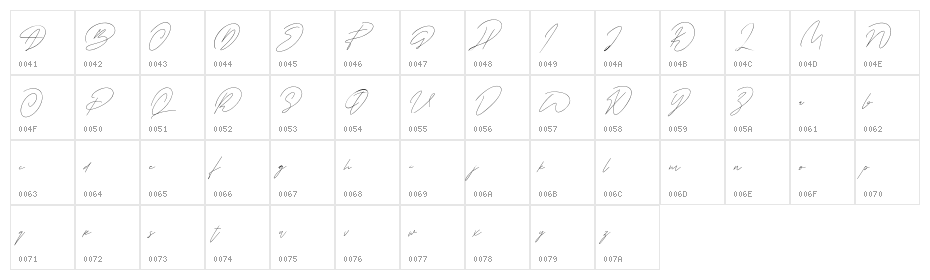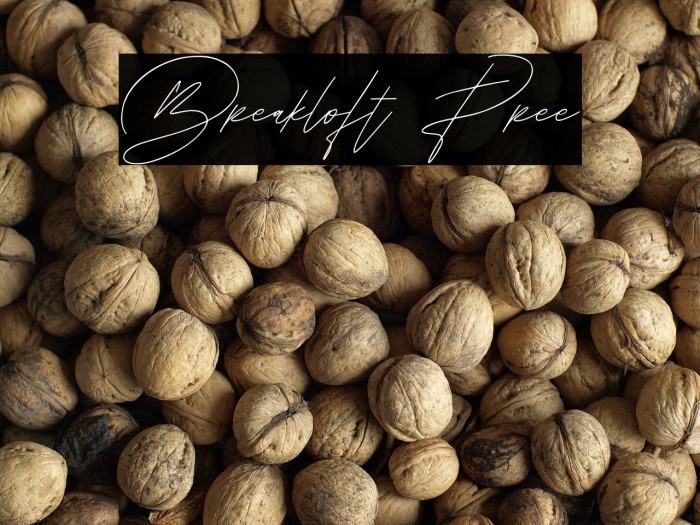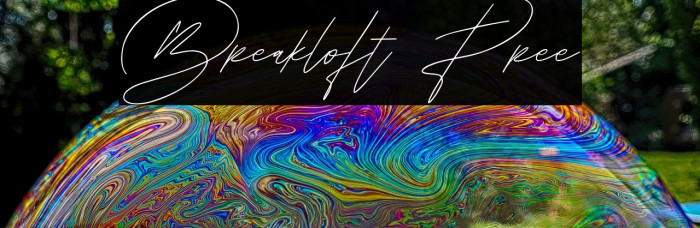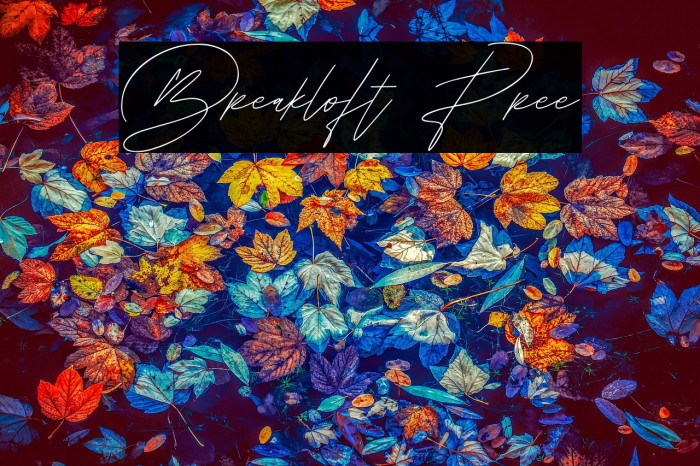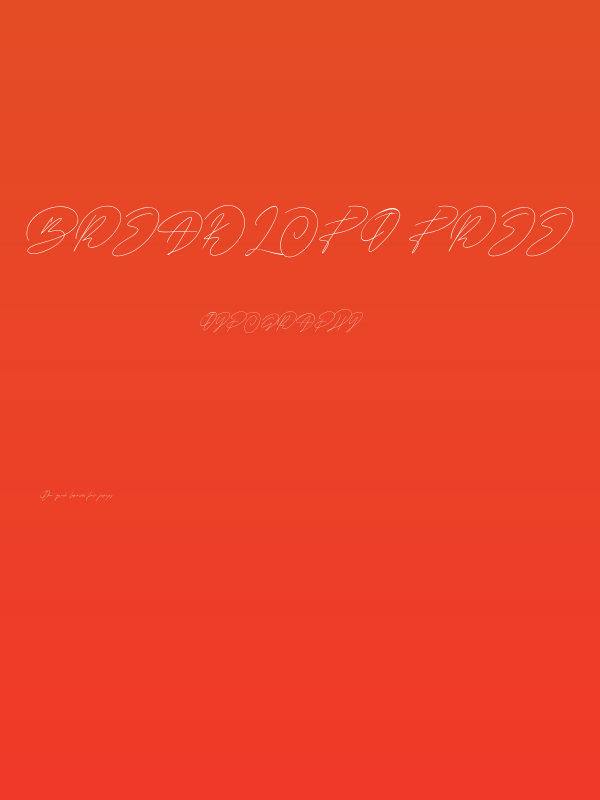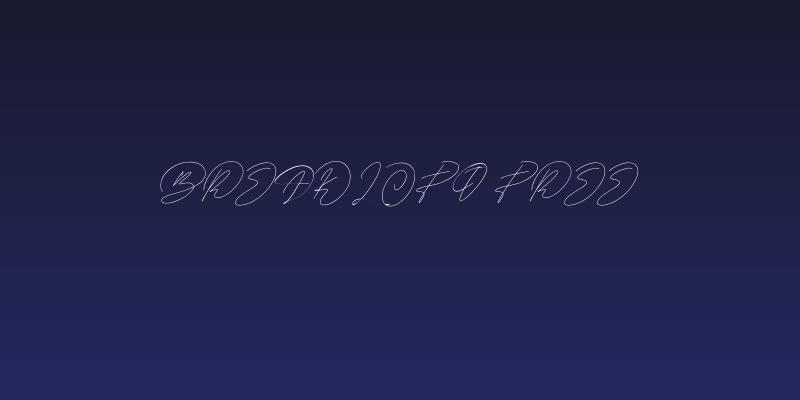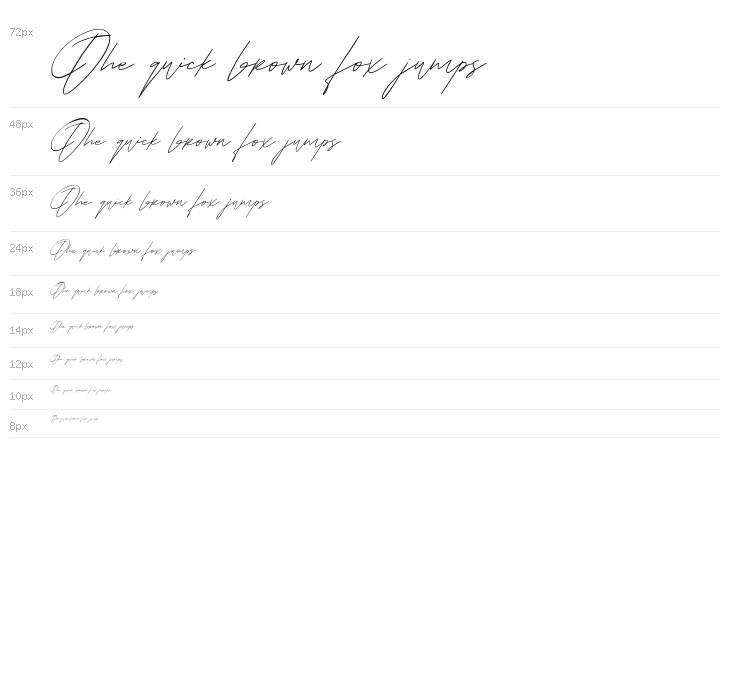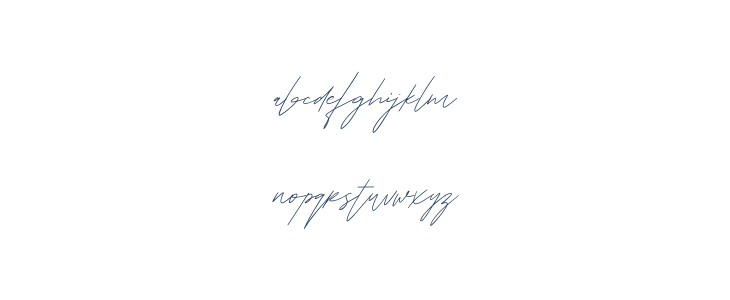
Breakloft Free Font
Breakloft Free Description
This font features an elegant and flowing script style, characterized by its delicate and continuous strokes that mimic the fluidity of handwriting. The uppercase letters are bold and sweeping, with exaggerated loops and curves that add a sense of grandeur and sophistication. The lowercase letters maintain a consistent flow, with each character seamlessly connecting to the next, creating a harmonious and cohesive appearance. The font's thin lines and graceful curves give it a light and airy feel, making it ideal for adding a touch of elegance to any design. Its overall aesthetic is both modern and timeless, suitable for a variety of creative projects.
| Overall Style | Elegant, Modern |
| Use Case | Logos, Invitations, Decorative text |
| Proposed Projects | Ideal for wedding invitations, branding, greeting cards, and elegant stationery. |